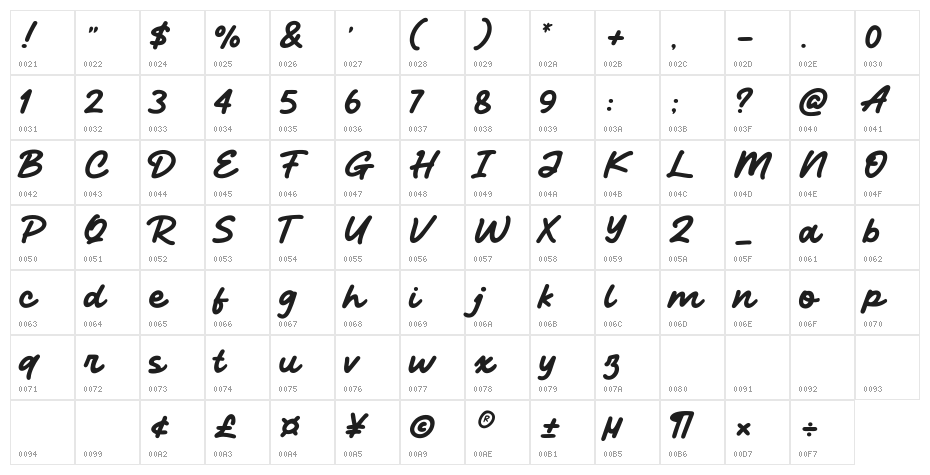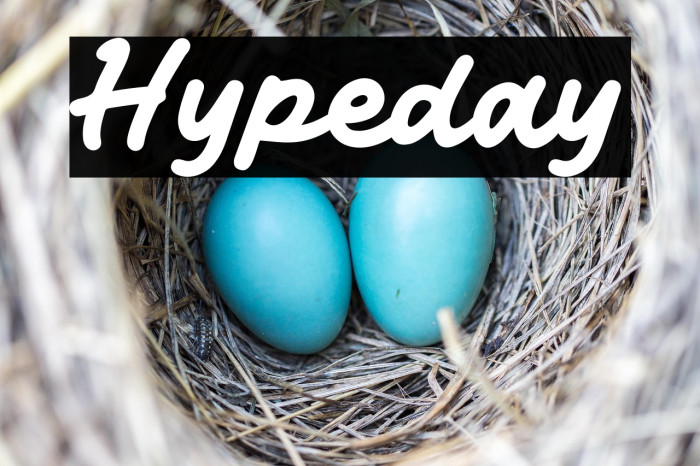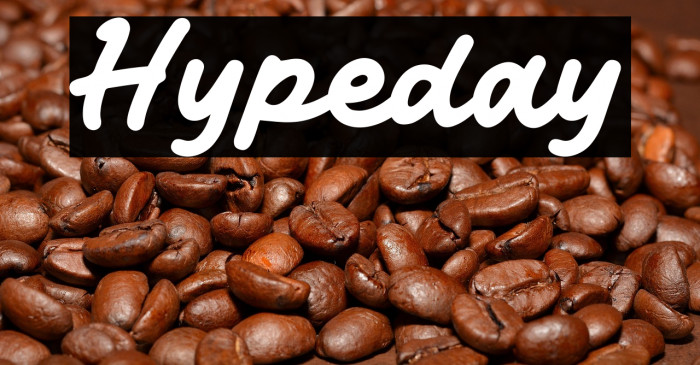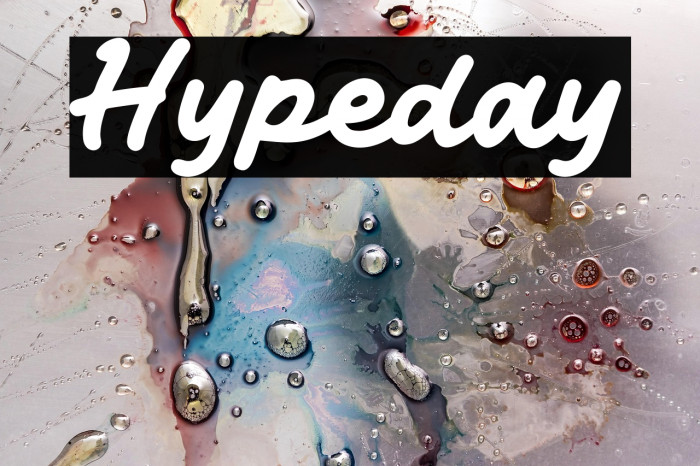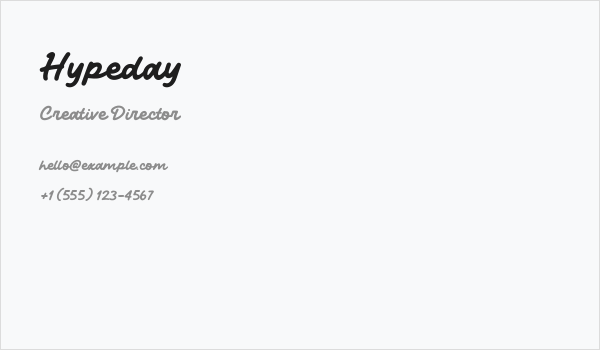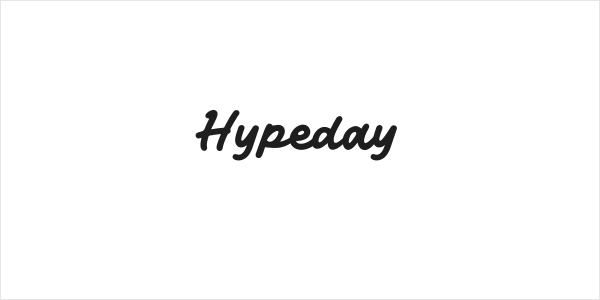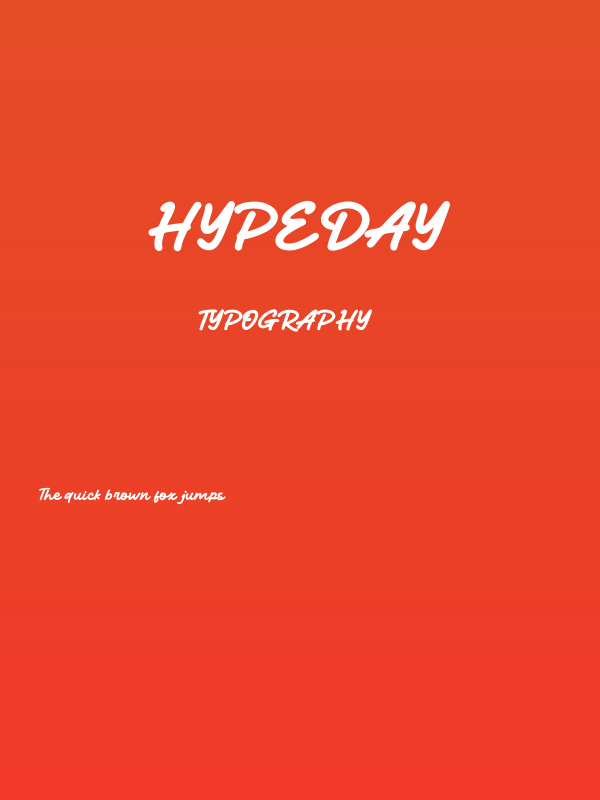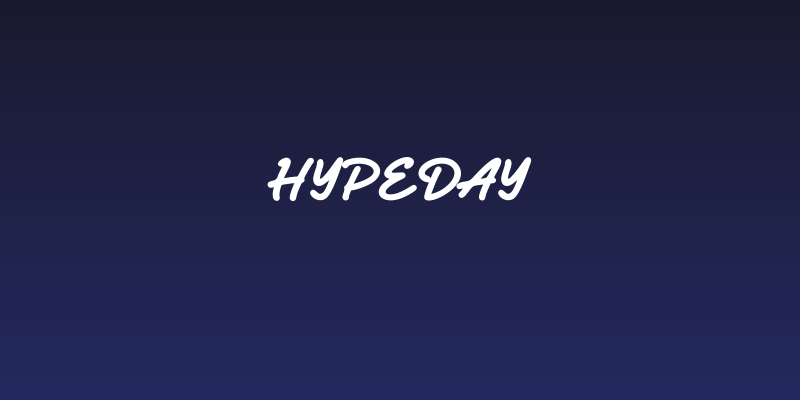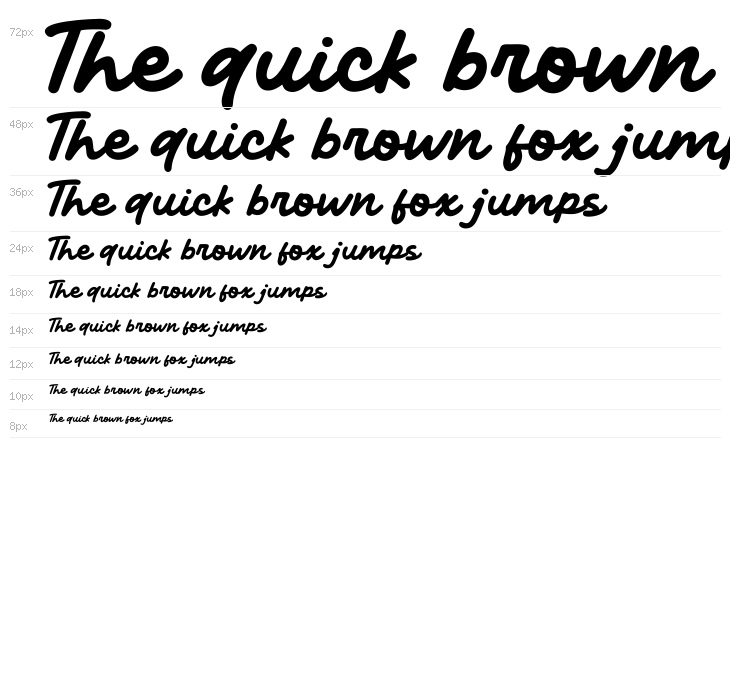
Hypeday Font
Hypeday Description
This font exhibits a bold and dynamic script style, characterized by its fluid and connected letterforms. The strokes are smooth and rounded, giving it a friendly and approachable appearance. The uppercase and lowercase letters maintain a consistent flow, enhancing readability while retaining a casual elegance. The numerals and special characters are designed to match the overall script style, ensuring uniformity across all elements. This font's lively and energetic design makes it suitable for a variety of creative applications.
| Use Case | Logos, Headlines, Invitations |
| Proposed Projects | Ideal for branding, invitations, greeting cards, and social media graphics. |